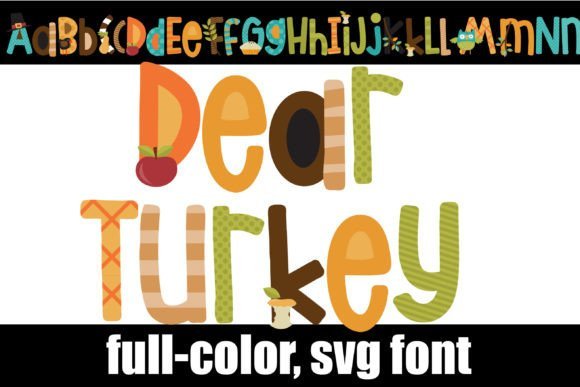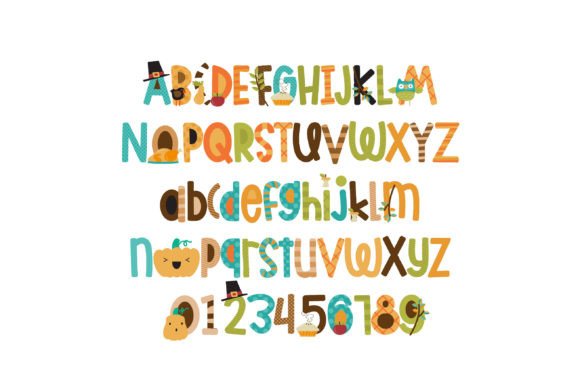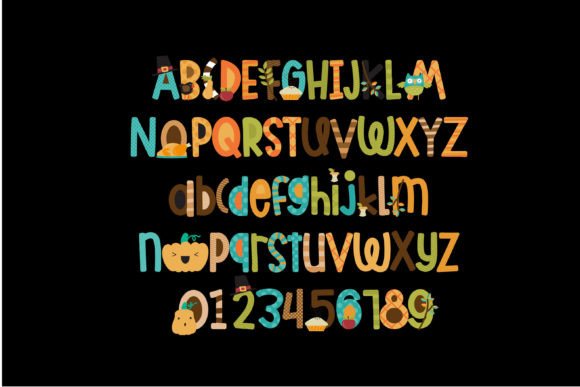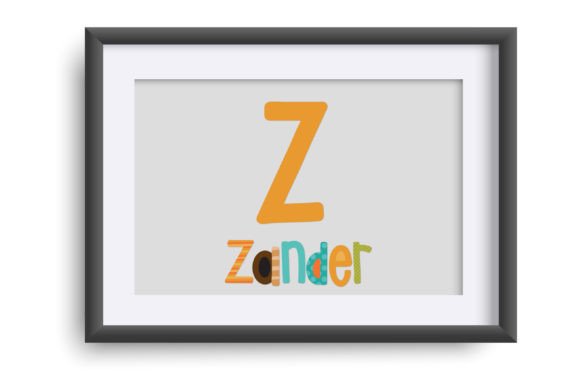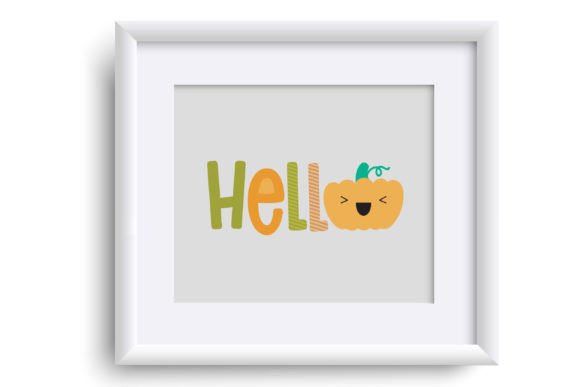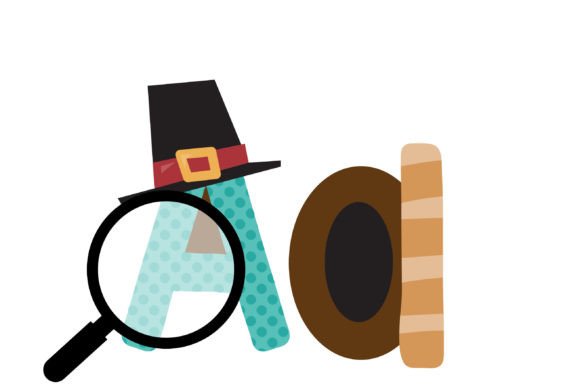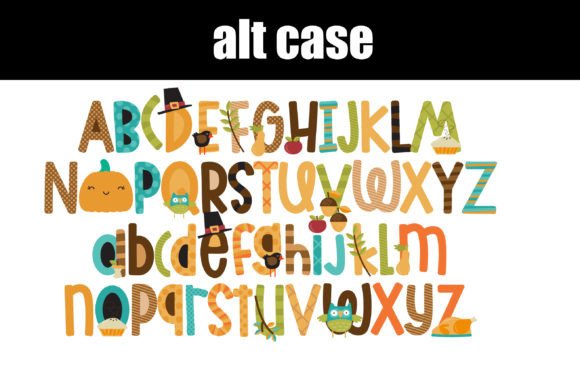
Get Ready to Spice Up Your Designs with the Dear Turkey Font
As you sit down to plan your Thanksgiving decorations, cards, and digital creations, have you ever found yourself stuck in a sea of bland fonts and colors? We’ve all been there. But what if you could add a dash of personality to your projects with a font that’s as festive as the holiday itself? Enter the Dear Turkey Font, a full-color masterpiece that’s sure to bring a smile to your face.
This delightful font features a Thanksgiving color palette and a medley of elements from a mouth-watering Thanksgiving feast. With its alt case option, each letter is a unique work of art, waiting to be combined in creative ways to make your designs truly special. Whether you’re a seasoned designer or a DIY enthusiast, the Dear Turkey Font is a valuable addition to your toolkit, offering endless possibilities for unique home decorations, digital designs, and more.
Key Features of Dear Turkey Font
- Font Family: Dear Turkey Font is a sans-serif font family with a unique, modern design.
- Unique Characteristics: Features a distinctive, rounded design with a subtle texture, giving it a unique and modern feel.
Dear Turkey Font Review
Overall, I think Dear Turkey Font has some great qualities, but also some areas where it falls short.
- Unique Character: Dear Turkey Font has a distinctive and quirky feel to it, which can be great for adding some personality to your designs.
- Playful Touch: The font’s playful and whimsical nature makes it perfect for use in projects that require a lighthearted tone.
- Good Legibility: Despite its unusual design, Dear Turkey Font is surprisingly legible, making it a great choice for body text or headings.
- Limited Versatility: Dear Turkey Font is quite a niche font, and its unique style may not be suitable for all projects or industries.
- Difficult to Read at Small Sizes: While Dear Turkey Font is legible at larger sizes, it can become difficult to read when scaled down to smaller font sizes.
- Lack of Consistency: The font’s irregular design can sometimes make it difficult to maintain consistency in your designs, especially when using it for extended periods of text.
Overall, I think Dear Turkey Font is a fun and quirky addition to any designer’s toolkit, but it’s not a font for every project. It’s perfect for adding a playful touch to your designs, but may not be the best choice for more serious or professional projects.
Getting the Most Out of Dear Turkey Font
To get the most out of the Dear Turkey Font, use it in combination with bold or italic text to add emphasis. You can also use it in conjunction with other fonts to create a unique and eye-catching design.
The Dear Turkey Font is particularly well-suited for use in invitations, greeting cards, and other festive designs. It’s also a great choice for use in social media graphics and advertisements.